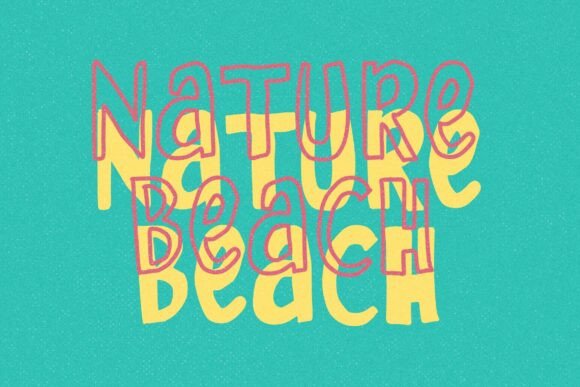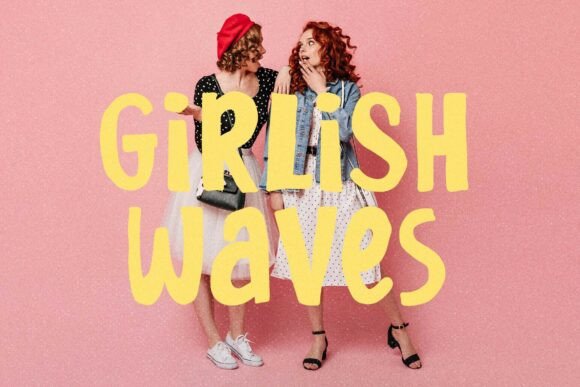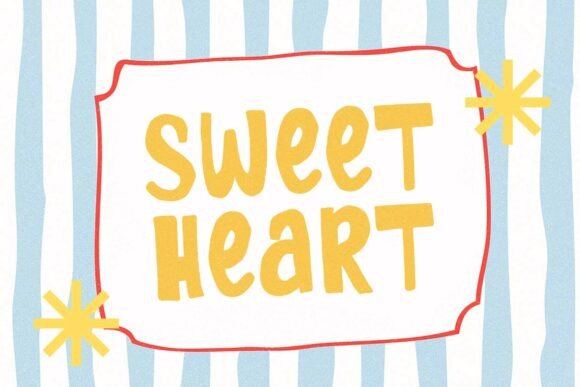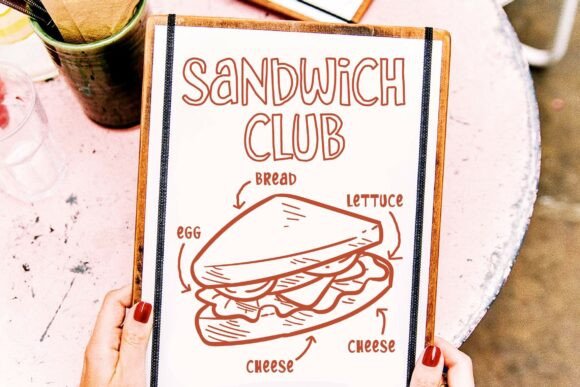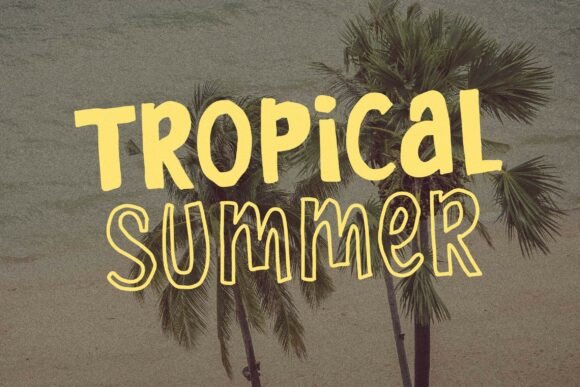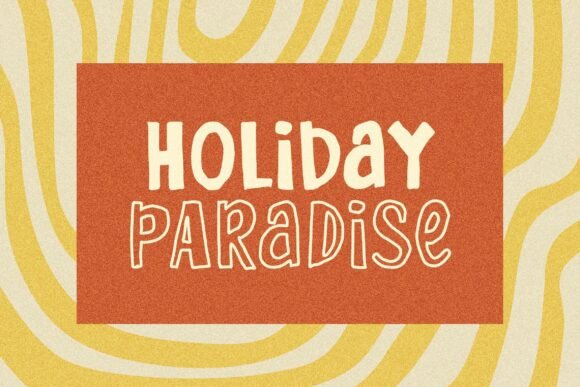
Introduction to Salty Coast Font
Salty Coast – A Playfully Ugly Font with Character Salty Coast is a bold and unconventional display font crafted for projects that embrace imperfection and personality.
Designed with an intentionally irregular and quirky style, each letter brings raw, expressive energy—perfect for logos, posters, product packaging, branding materials, watermarks, and promotional graphics that stand out from the ordinary This font includes a full set of uppercase and lowercase characters, numerals, and punctuation—all designed with an offbeat, “ugly” charm that adds character and authenticity to your creative work.
Key Features of Salty Coast Font